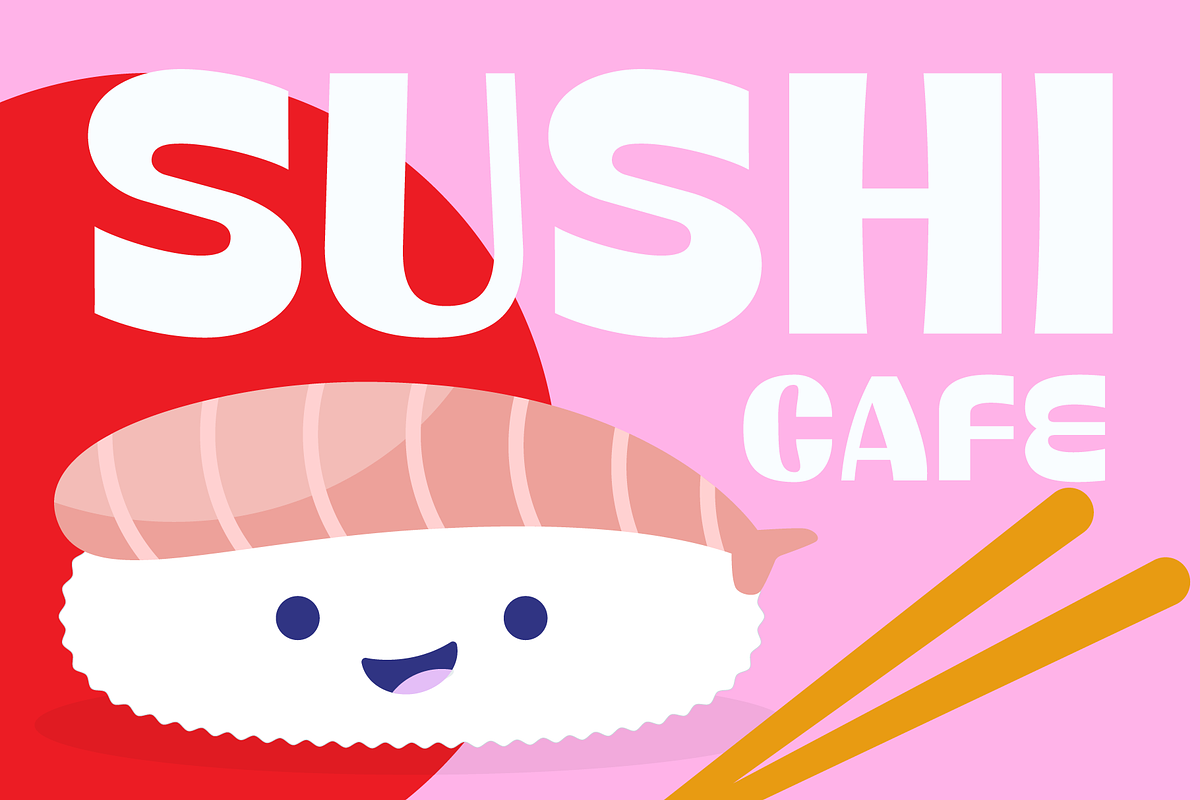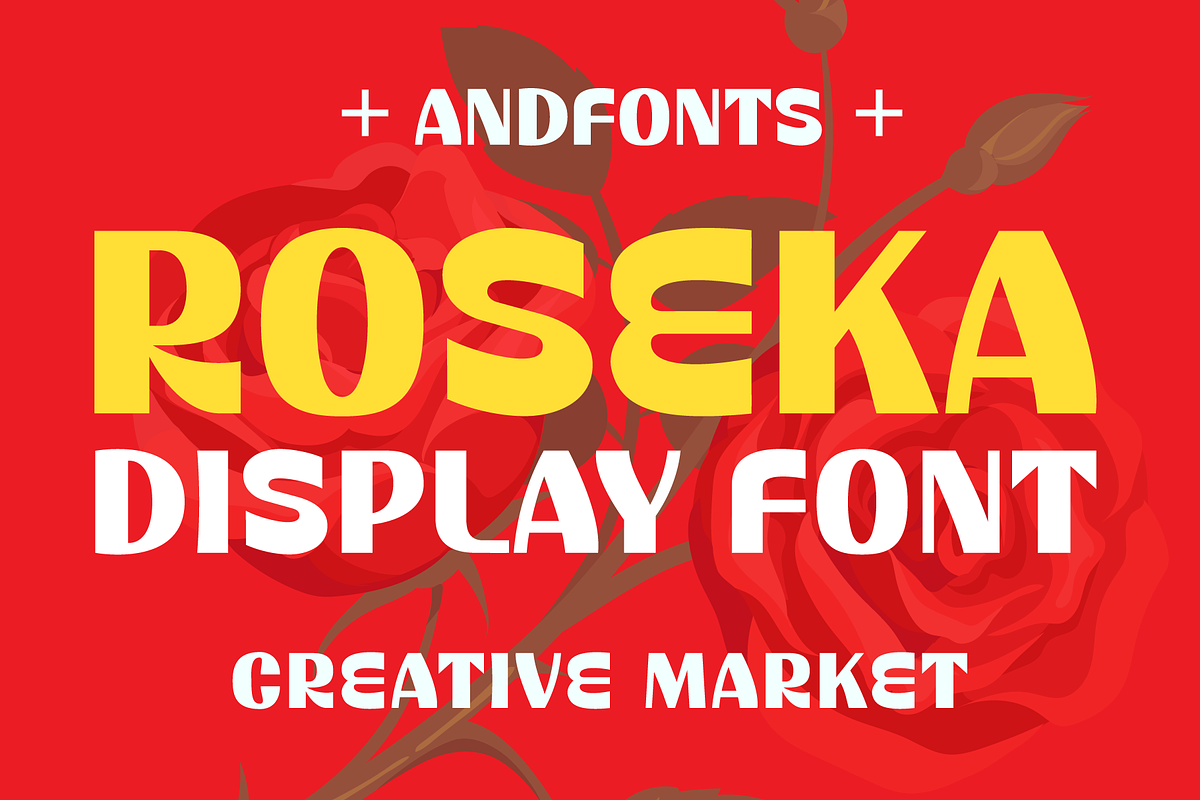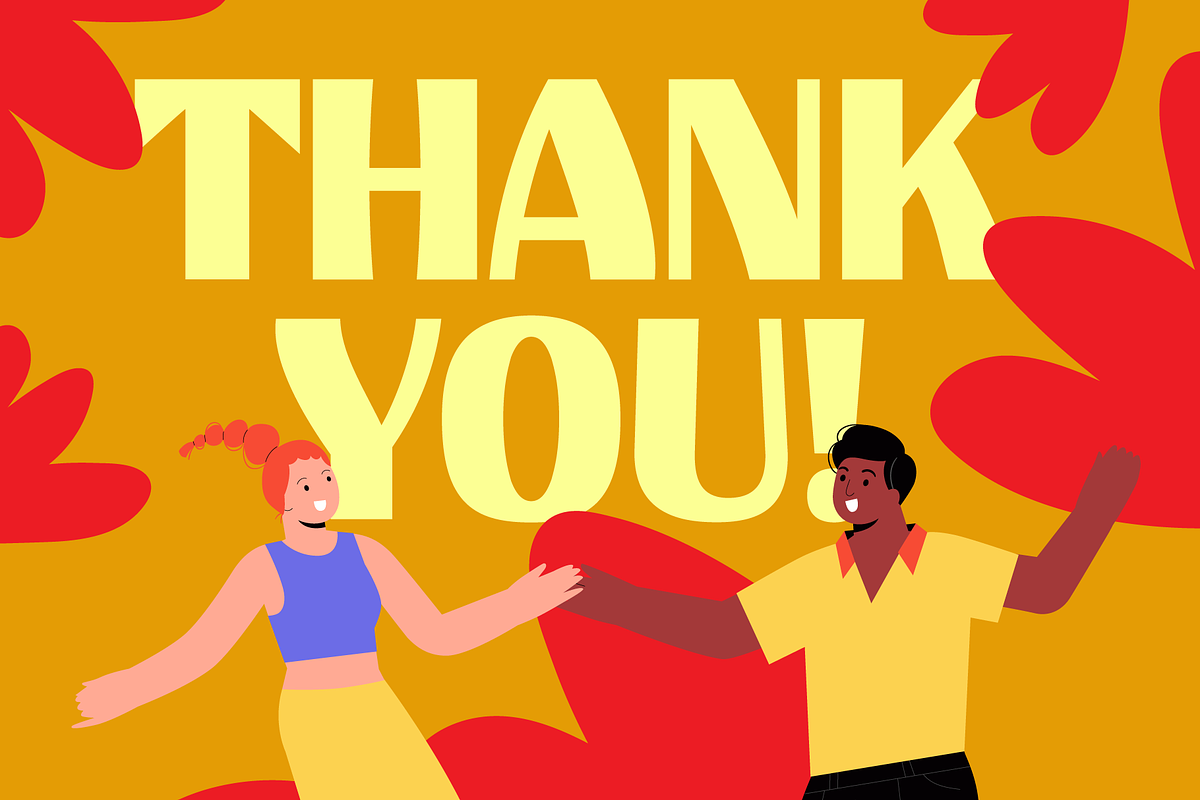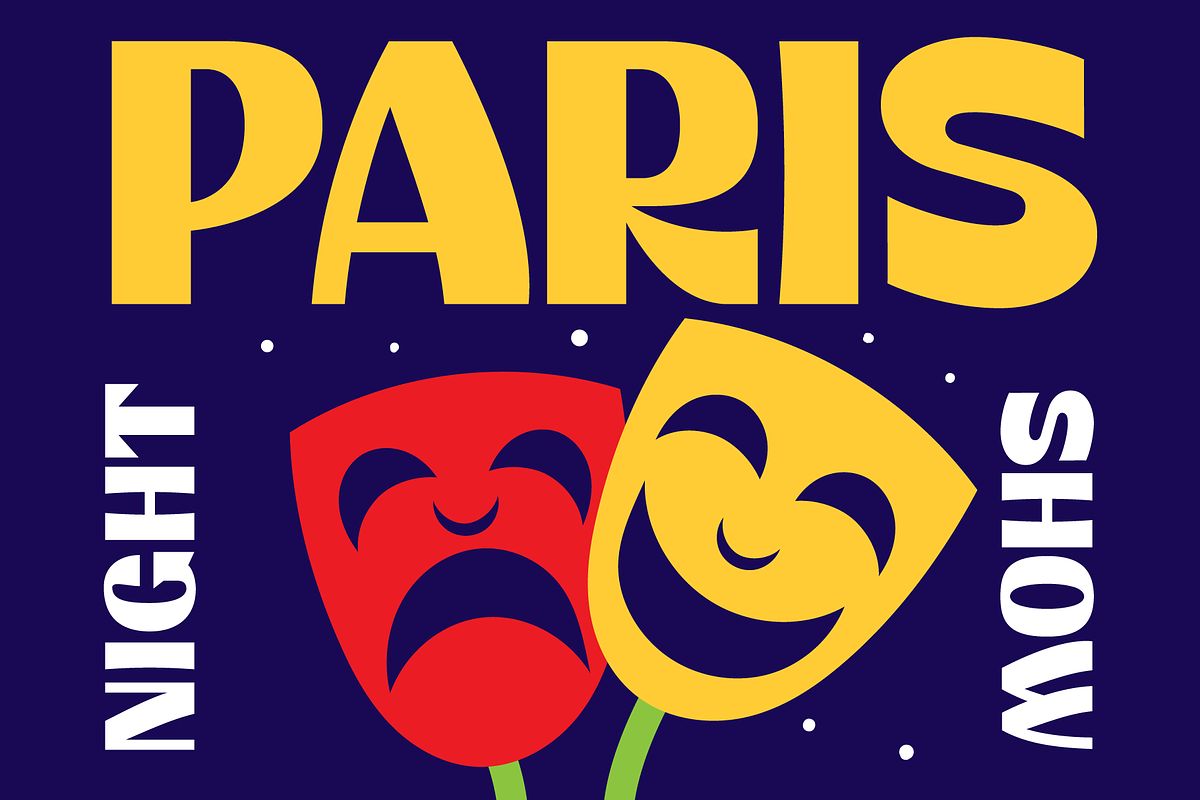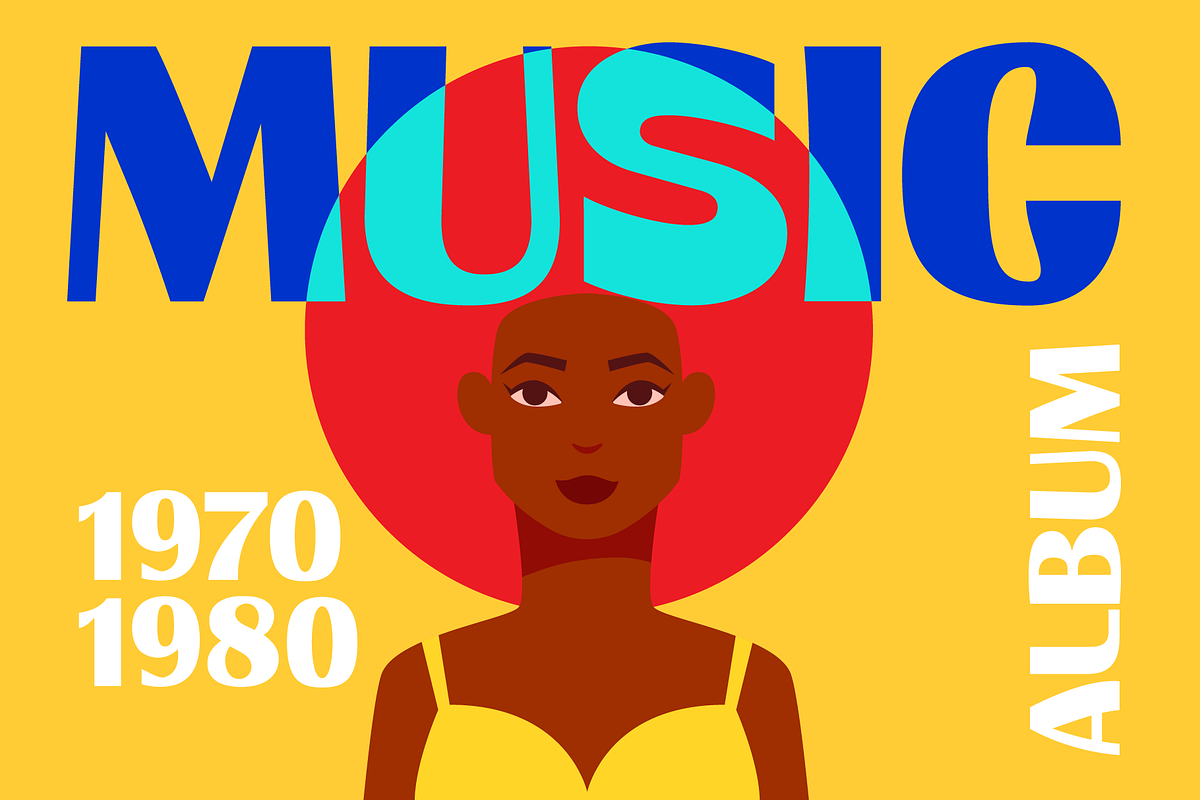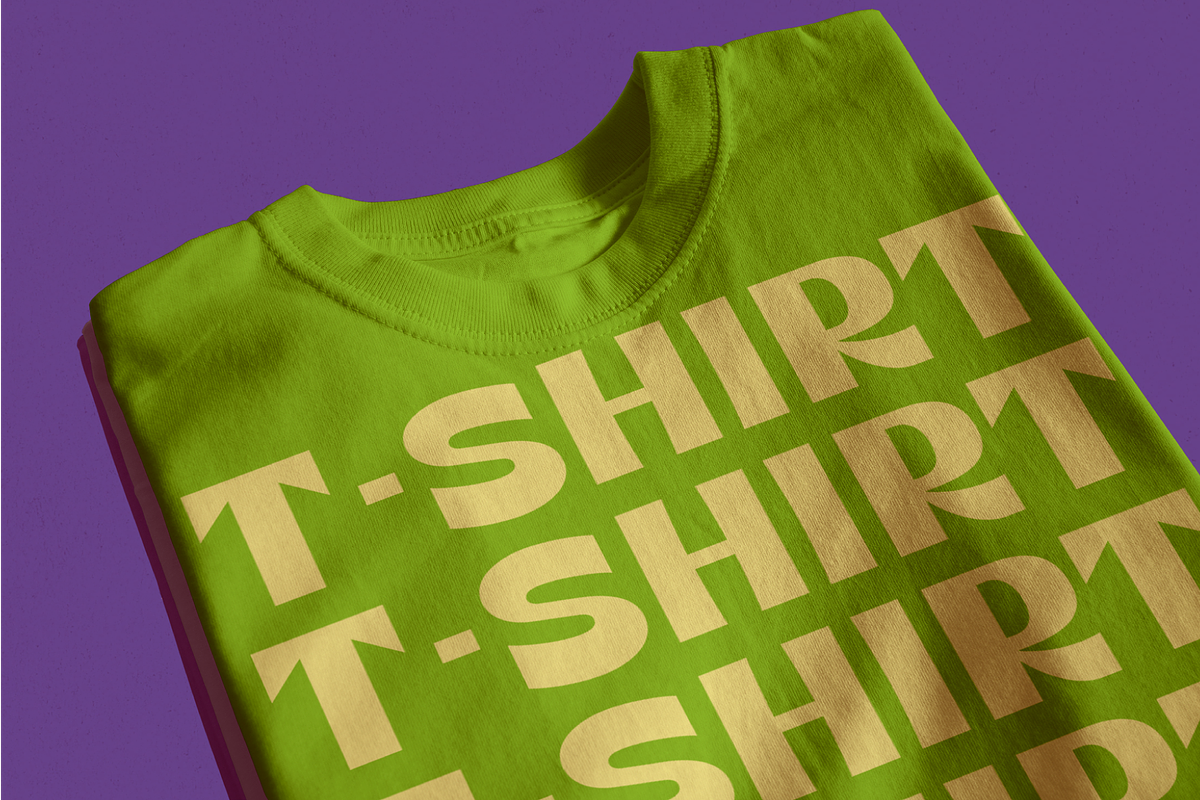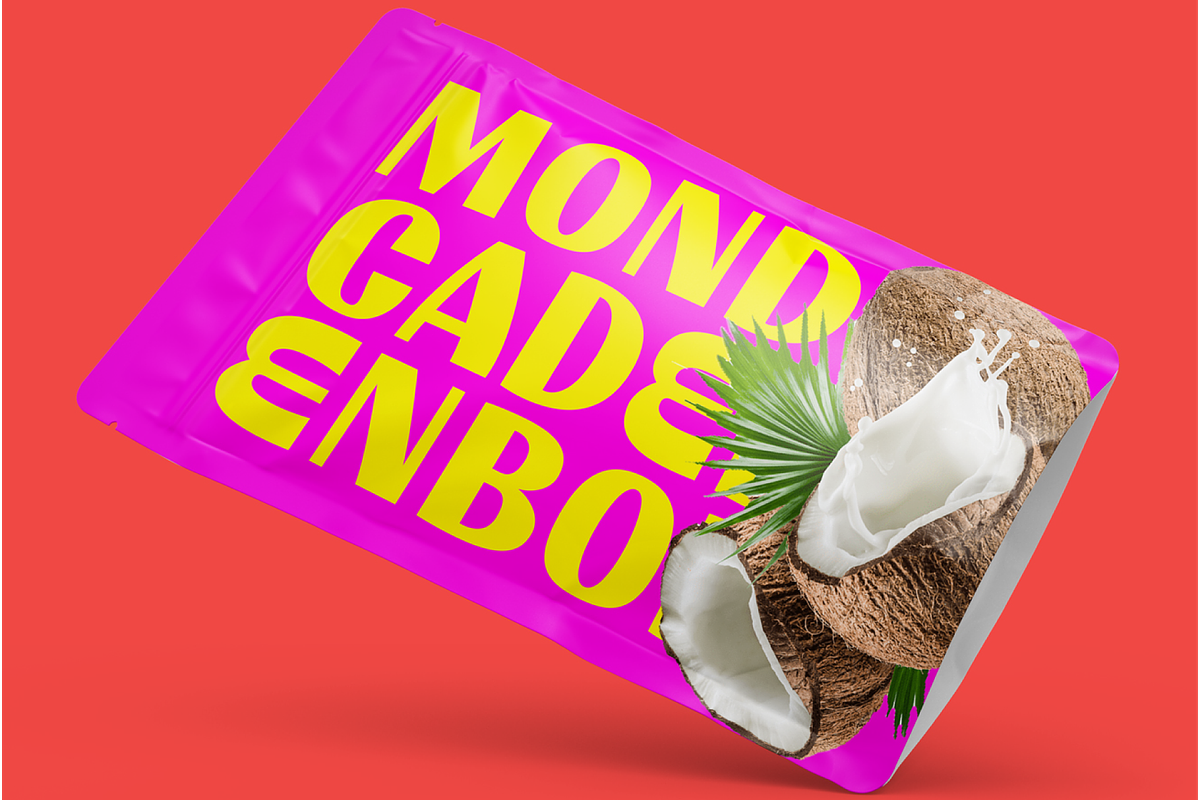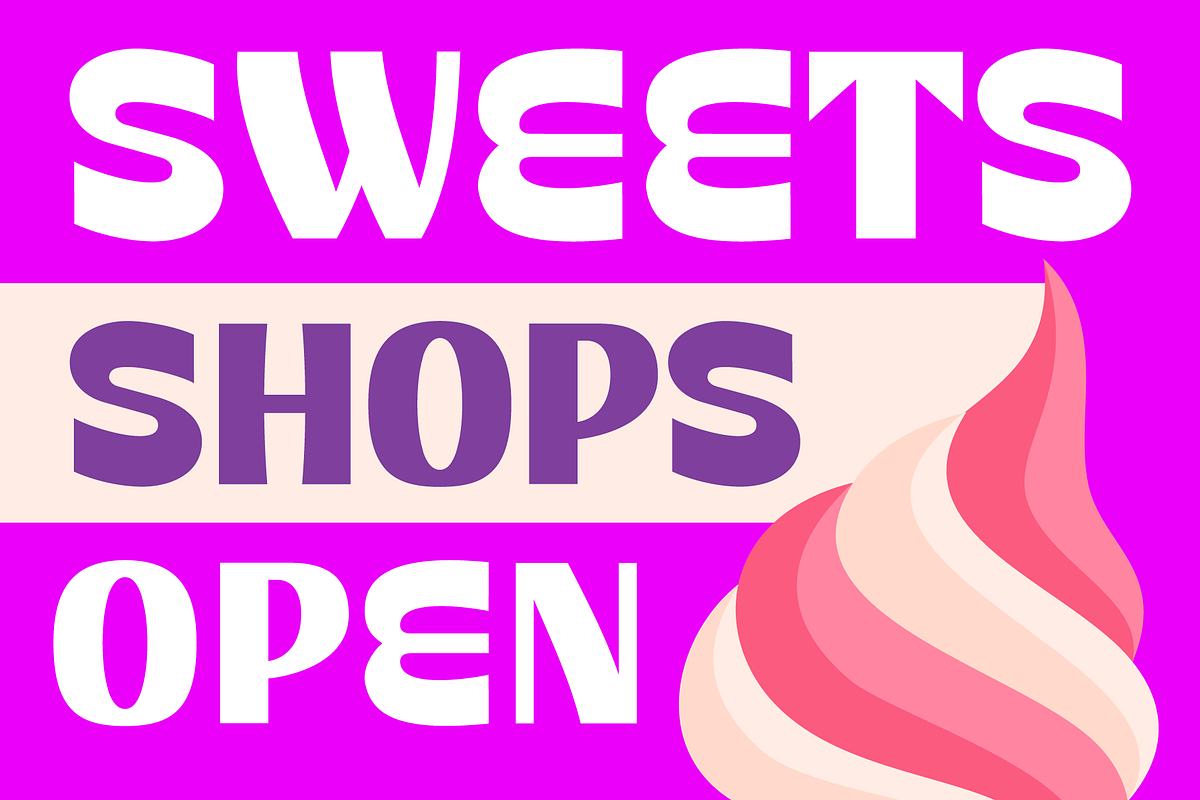
Roseka Playful Font
Meet "Roseka," the font that's here to infuse your designs with a burst of energy and creativity. This playful and funky typeface adds a dash of retro charm, making it the perfect choice for a wide array of projects. Whether you're working on posters, social media graphics, or even reimagining vintage aesthetics, Roseka's got you covered.
Its whimsical letterforms give your text a unique personality, making it ideal for advertisements, branding, packaging, invitations, and more. Unleash your creativity without limits – Roseka is the creative spark your projects need.